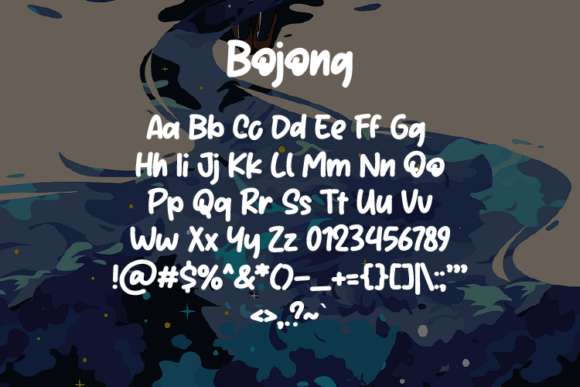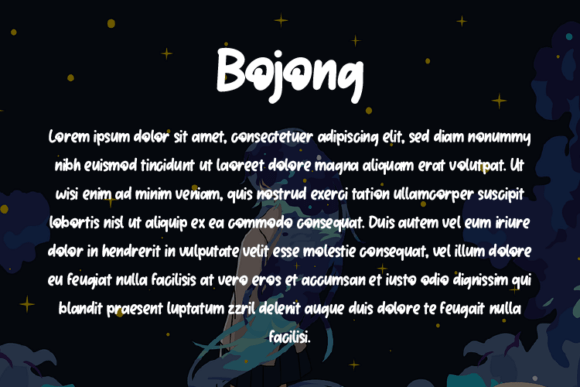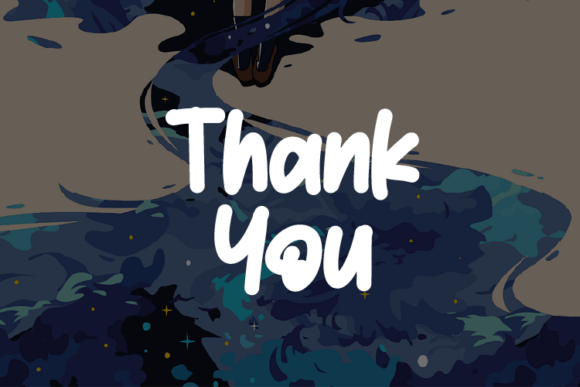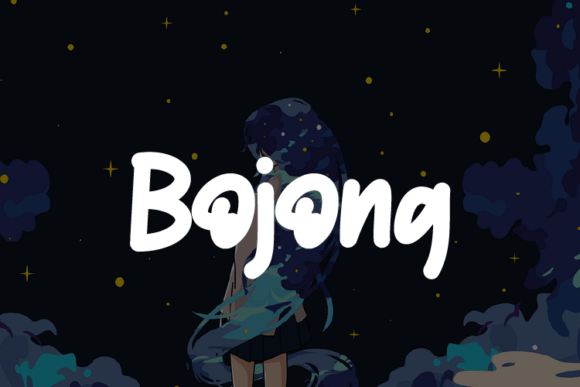
Introducing Bojong Font: Elevate Your Designs with Modern Elegance
In the world of typography, a font can make or break a design. For designers and crafters seeking a modern and elegant typeface that offers flexibility and excellent readability, look no further than Bojong Font. This versatile font is designed to impress, with a clean and sophisticated aesthetic that adapts seamlessly across various media platforms.
What is Bojong Font?
Bojong Font is a contemporary typeface crafted with precision and attention to detail. Its sleek lines, balanced proportions, and refined features make it an excellent choice for a wide range of design applications. Whether you’re working on a branding project, creating engaging content, or crafting beautiful artwork, Bojong Font provides the perfect blend of style and functionality.
Key Features of Bojong Font
- Modern and Elegant Design: Bojong Font boasts a fresh and sophisticated look, making it ideal for designs that demand a touch of elegance.
- Excellent Readability: With its clear and well-defined letterforms, Bojong Font ensures that your text remains legible even at small sizes, across various media and devices.
- Flexible and Versatile: This font is designed to work beautifully in a variety of contexts, from digital screens to print materials.
Use Cases for Bojong Font
Bojong Font’s versatility makes it suitable for a wide range of design applications, including:
- Branding and Logo Design: Create memorable and impactful logos with Bojong Font’s elegant and modern aesthetic.
- Digital Content Creation: Enhance your blog posts, social media graphics, and website content with a sophisticated and readable typeface.
- Print Design: Use Bojong Font in brochures, flyers, posters, and business cards to add a touch of elegance and professionalism.
- Crafting and DIY Projects: Add a personal touch to your handmade crafts, such as journals, planners, and greeting cards, with Bojong Font.
Tips for Using Bojong Font
To get the most out of Bojong Font, consider the following tips:
- Experiment with Font Sizes: Bojong Font’s clear and legible design makes it suitable for use at various font sizes, from headings to body text.
- Play with Font Styles: Take advantage of Bojong Font’s different styles and weights to create visual hierarchy and add depth to your designs.
- Pair with Other Fonts: Combine Bojong Font with complementary fonts to create unique and engaging typography.